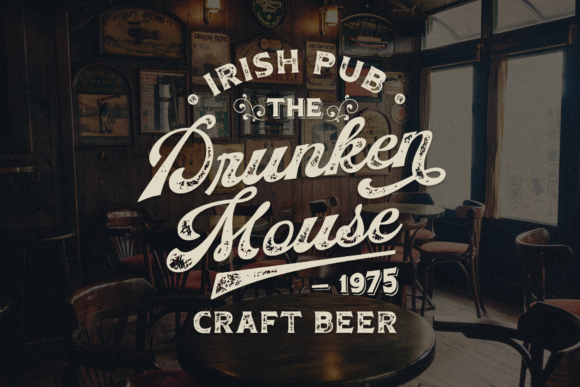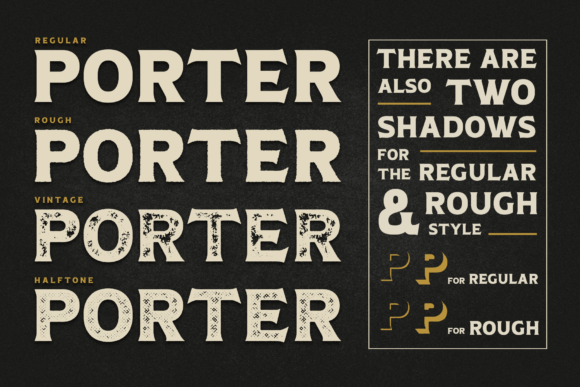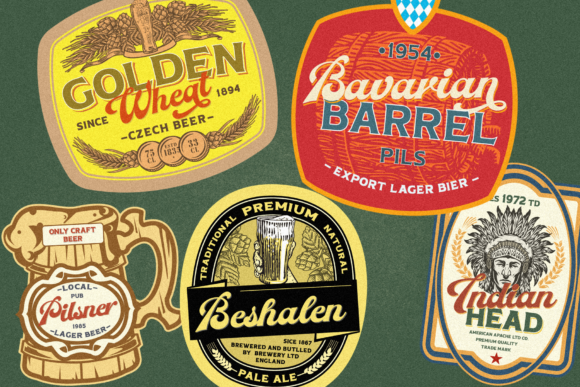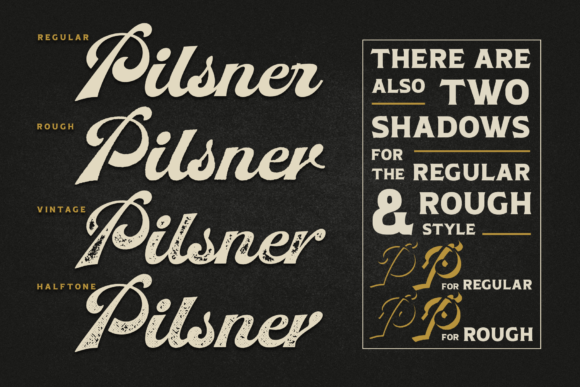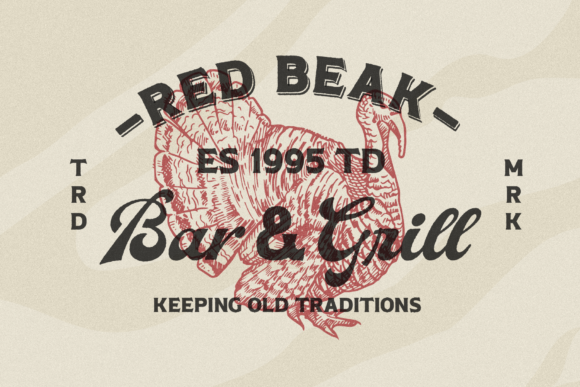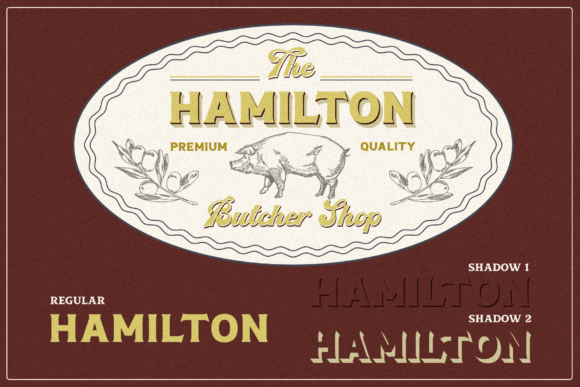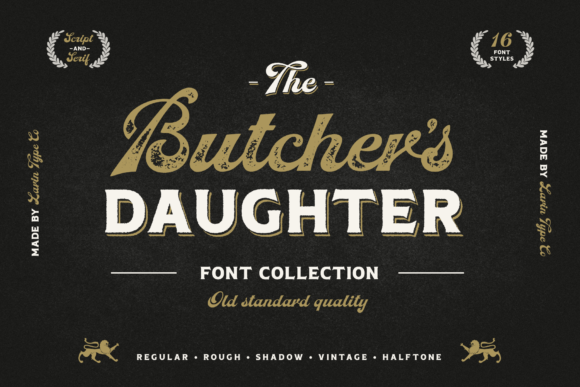
Introducing Butcher’s Daughter Font: A Bold and Vintage Display Font
Are you tired of using the same old fonts for your designs? Look no further than Butcher’s Daughter Font, a cool, bold, and vintage-styled display font that’s sure to make your creations stand out. With its uniquely shaped letters and imposing presence, this font is perfect for designers and crafters looking to add a distinct touch to their work.
What is Butcher’s Daughter Font?
Butcher’s Daughter Font is a display font that exudes a sense of nostalgia and sophistication. Its bold and vintage style makes it perfect for use in a variety of design projects, from logos and branding to packaging and advertising. The font features uniquely shaped letters that are sure to grab attention and leave a lasting impression.
Key Features of Butcher’s Daughter Font
- Bold and Vintage Style: Butcher’s Daughter Font boasts a bold and vintage style that’s sure to add a touch of elegance to your designs.
- Uniquely Shaped Letters: The font features uniquely shaped letters that are designed to stand out and make a statement.
- Imposing Presence: With its bold and confident style, Butcher’s Daughter Font is sure to dominate any design project it’s used in.
- Versatile: This font is versatile and can be used in a wide range of design projects, from logos and branding to packaging and advertising.
Who is Butcher’s Daughter Font for?
Butcher’s Daughter Font is perfect for designers and crafters who are looking to add a touch of sophistication and elegance to their work. Whether you’re a professional designer or a DIY crafter, this font is sure to help you create stunning designs that stand out from the crowd.
How to Use Butcher’s Daughter Font
Butcher’s Daughter Font is easy to use and can be incorporated into a variety of design projects. Here are a few ways you can use this font:
- Logos and Branding: Use Butcher’s Daughter Font to create a bold and memorable logo that will help establish your brand identity.
- Packaging Design: Add a touch of elegance to your packaging designs with this beautiful font.
- Advertising: Use Butcher’s Daughter Font to create eye-catching ads that will grab attention and drive results.
- Social Media Graphics: Create stunning social media graphics that will help you stand out from the crowd.
Tips for Getting the Most Out of Butcher’s Daughter Font
Here are a few tips for getting the most out of Butcher’s Daughter Font:
- Use it Sparingly: Because of its bold and imposing style, it’s best to use Butcher’s Daughter Font sparingly to avoid overwhelming your design.
- Pair it with Other Fonts: Experiment with pairing Butcher’s Daughter Font with other fonts to create a unique and visually appealing design.
- Experiment with Colors: Try out different colors and textures to see how they interact with Butcher’s Daughter Font.
In conclusion, Butcher’s Daughter Font is a bold and vintage-styled display font that’s perfect for designers and crafters looking to add a touch of sophistication and elegance to their work. With its uniquely shaped letters and imposing presence, this font is sure to make your designs stand out from the crowd. So why wait? Download Butcher’s Daughter Font today and start creating stunning designs that will leave a lasting impression.